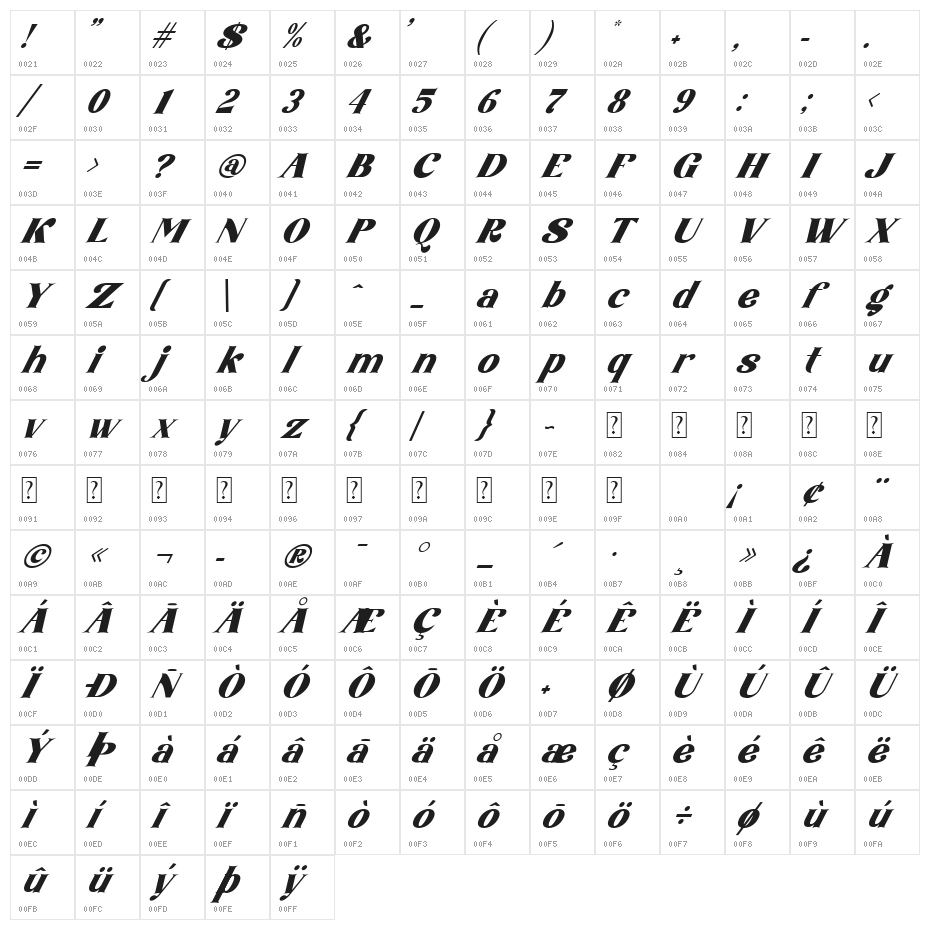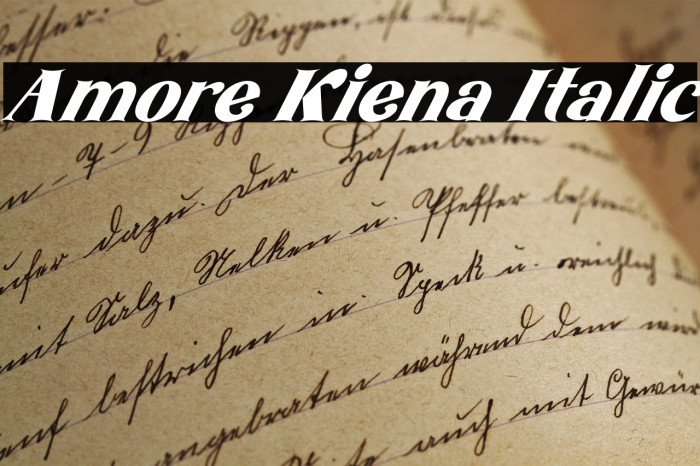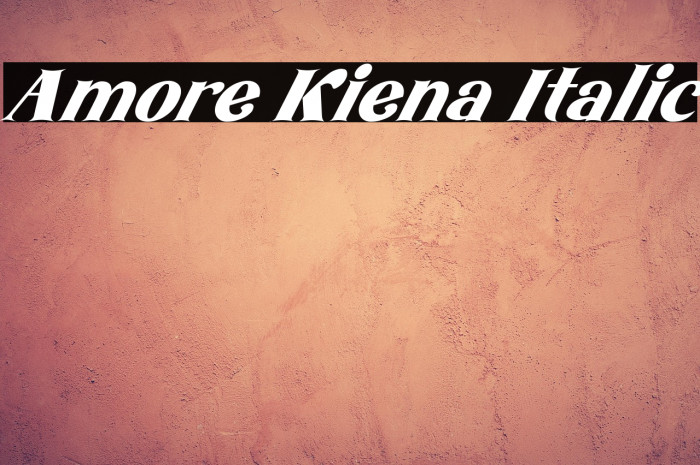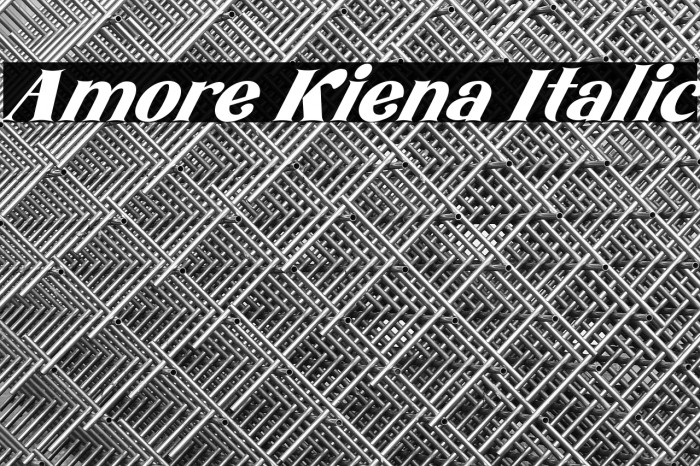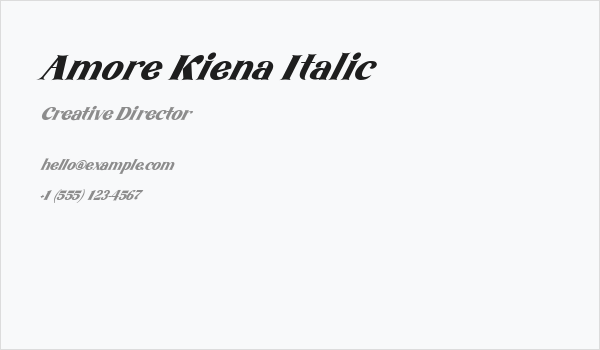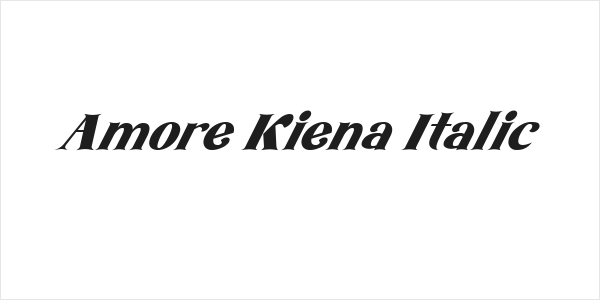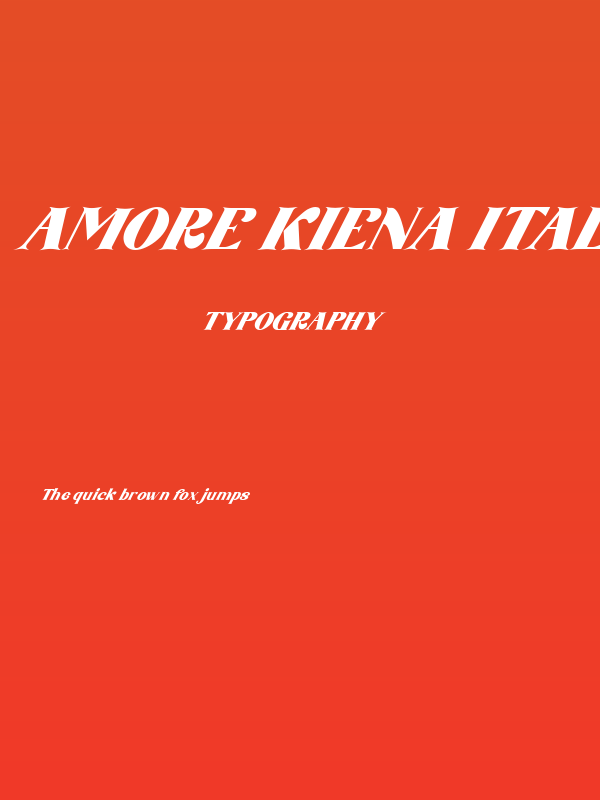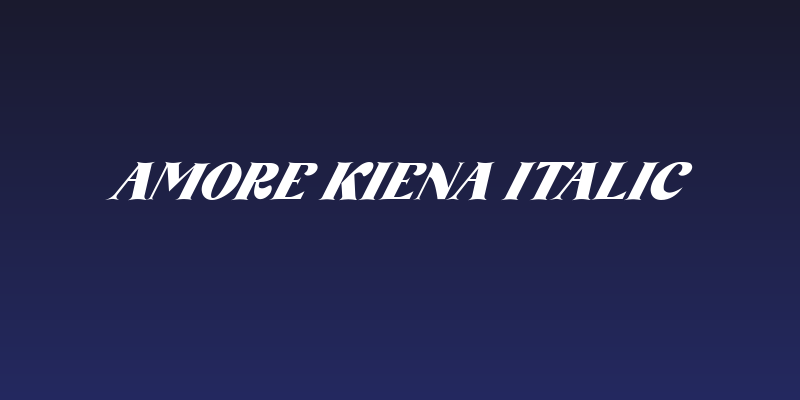
Amore Kiena Italic Font
Amore Kiena Italic Description
This font exhibits a bold, italicized style with a strong presence. The characters are sharply defined with high contrast between thick and thin strokes, giving it a dynamic and elegant appearance. The slanted orientation adds a sense of movement and sophistication, making it suitable for attention-grabbing headlines or stylish branding. The uppercase letters are particularly striking, with a sense of grandeur, while the lowercase letters maintain readability. The numerals and special characters are consistent with the overall design, ensuring a cohesive look across different uses.
Proposed ProjectsIdeal for luxury branding, fashion magazines, elegant invitations, and dynamic advertising.